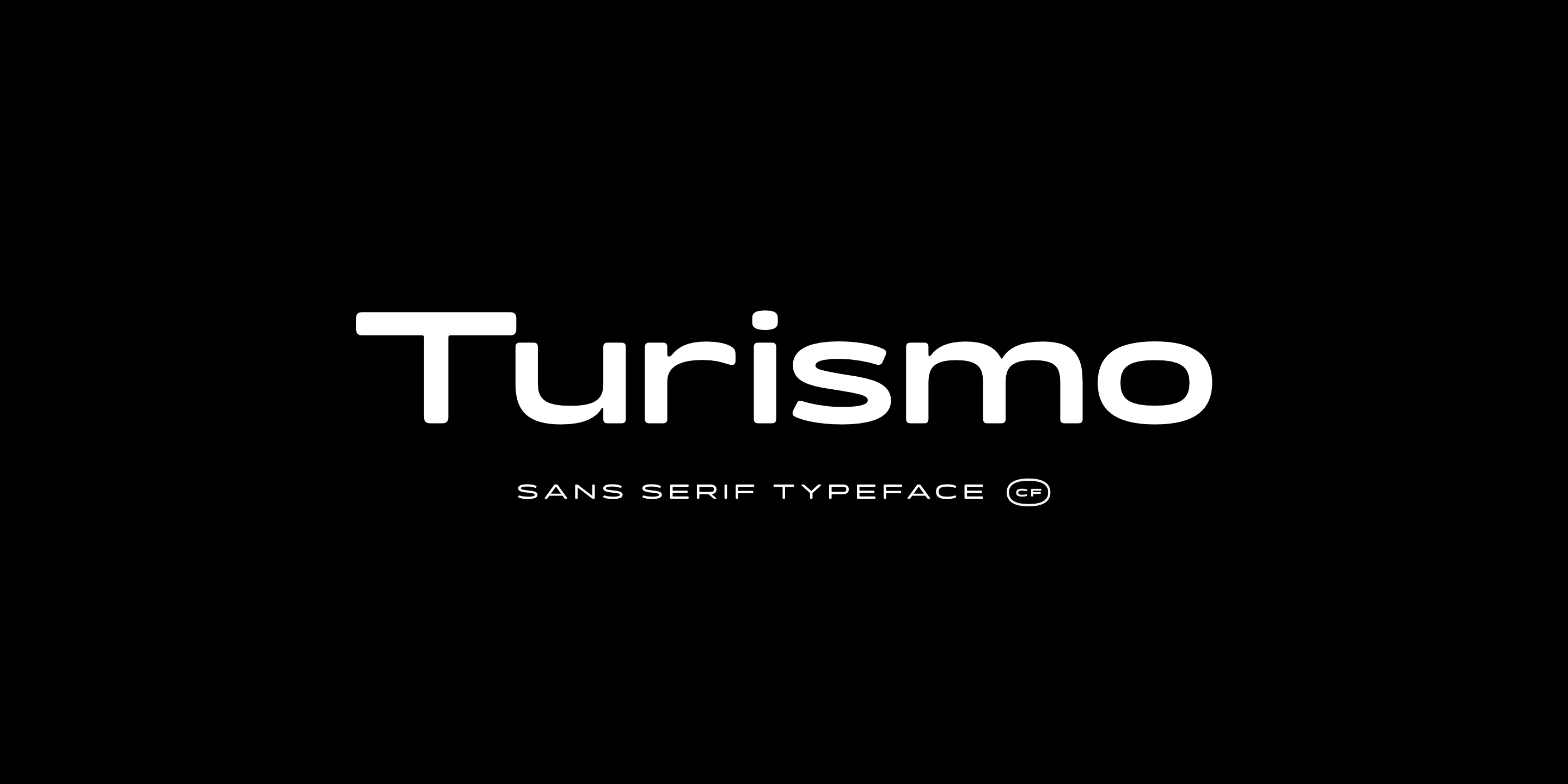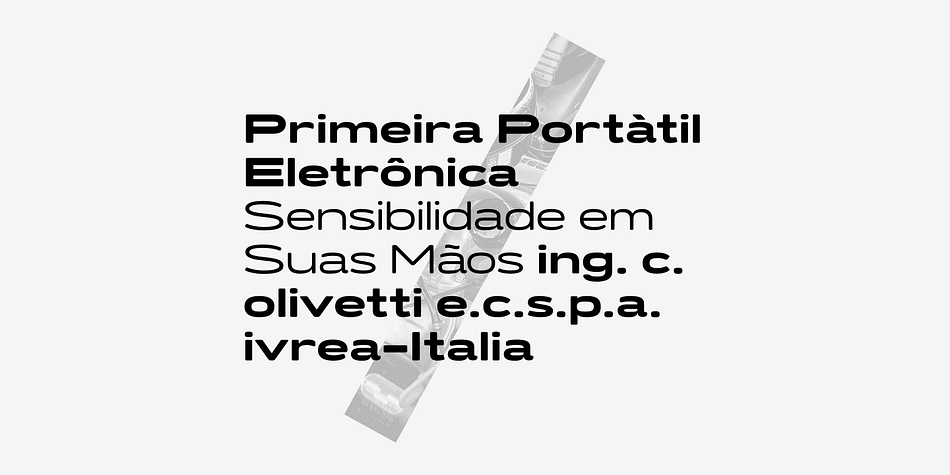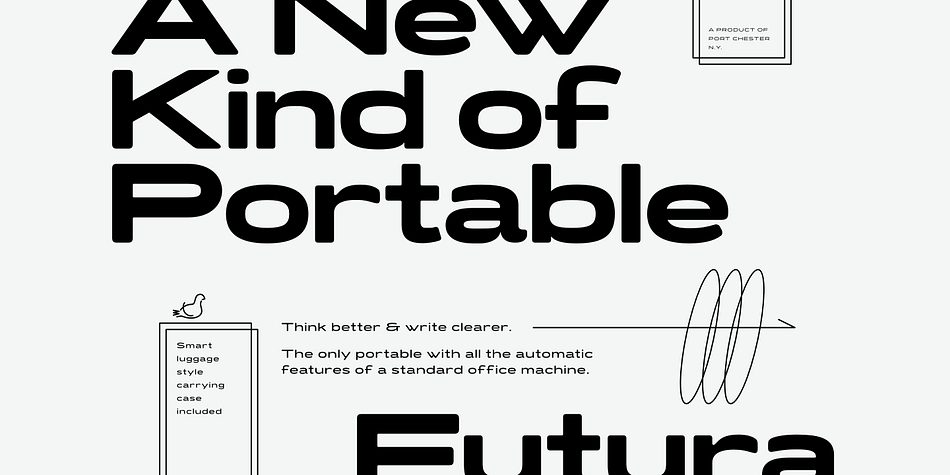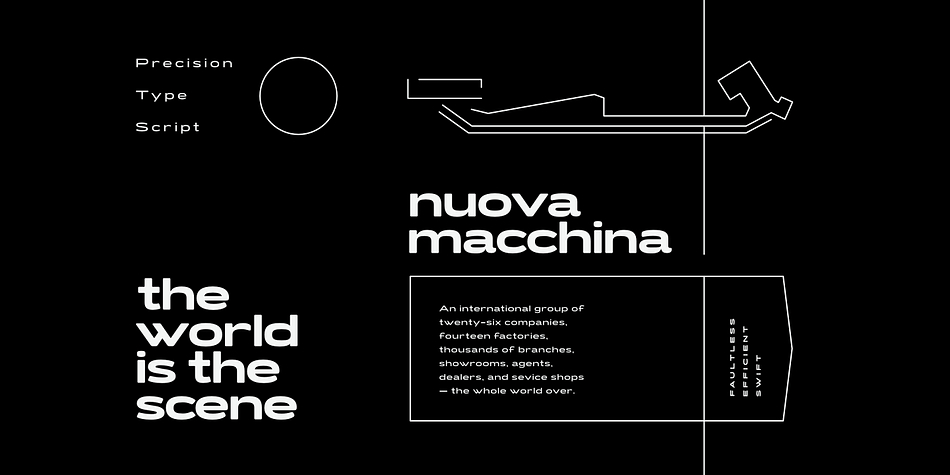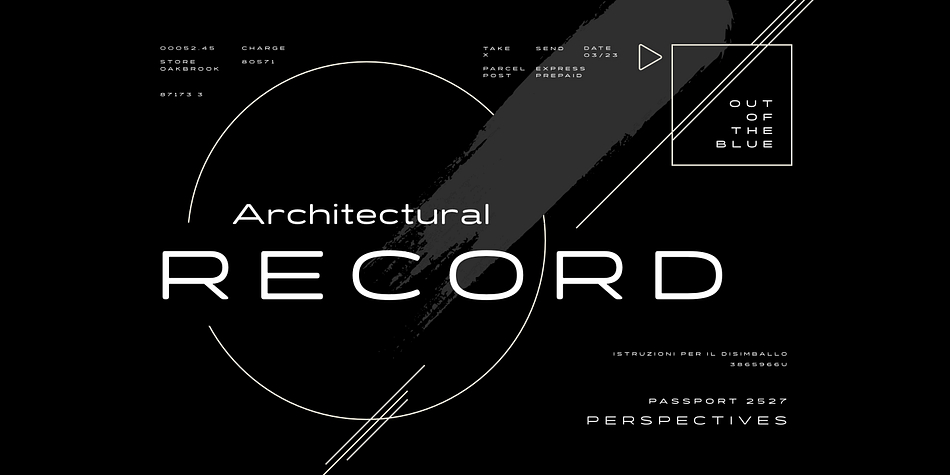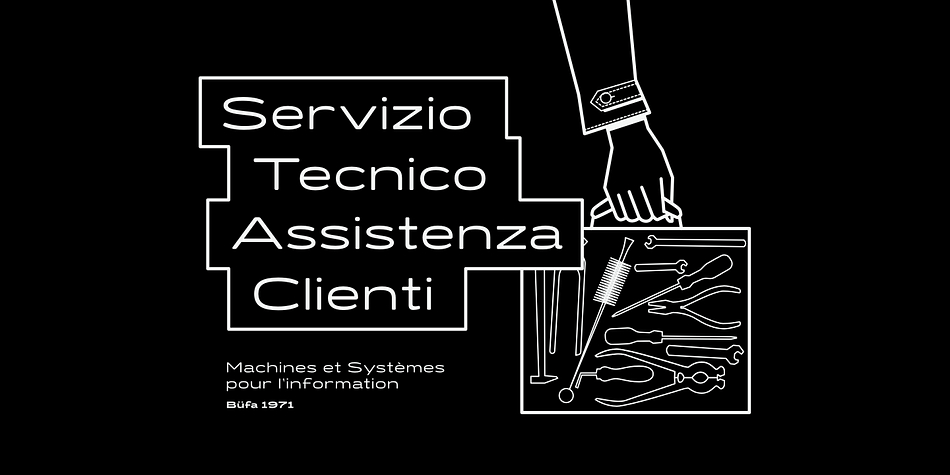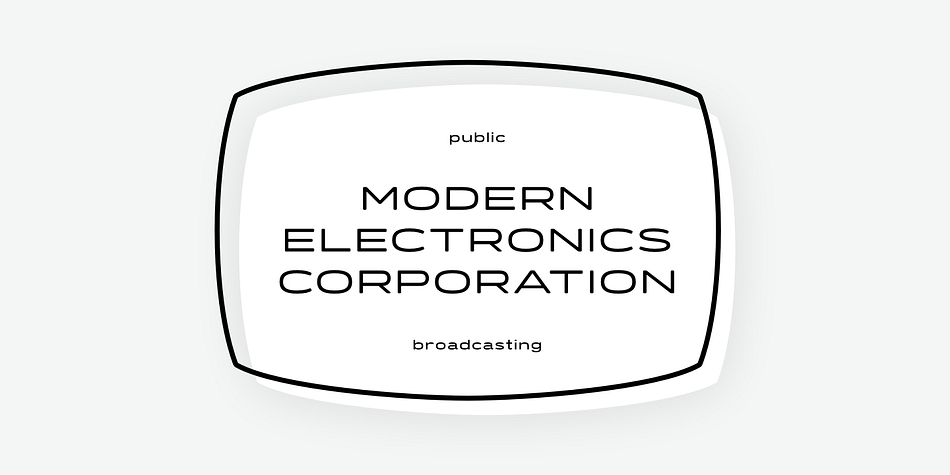
Turismo CF is a display sans and sans serif font family. This typeface has seven styles and was published by Connary Fagen Type Design.
Inspired by midcentury motorsports, technology, and business, Turismo CF is designed for stunning logotypes and gripping headlines. Taking cues from both the 1960s and 1920s, Turismo combines strong rectangular shapes with sloping, elongated curves.